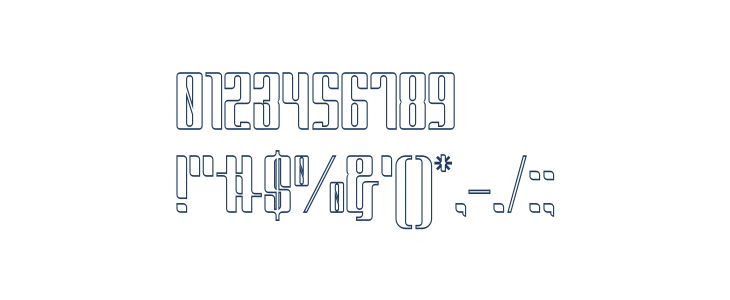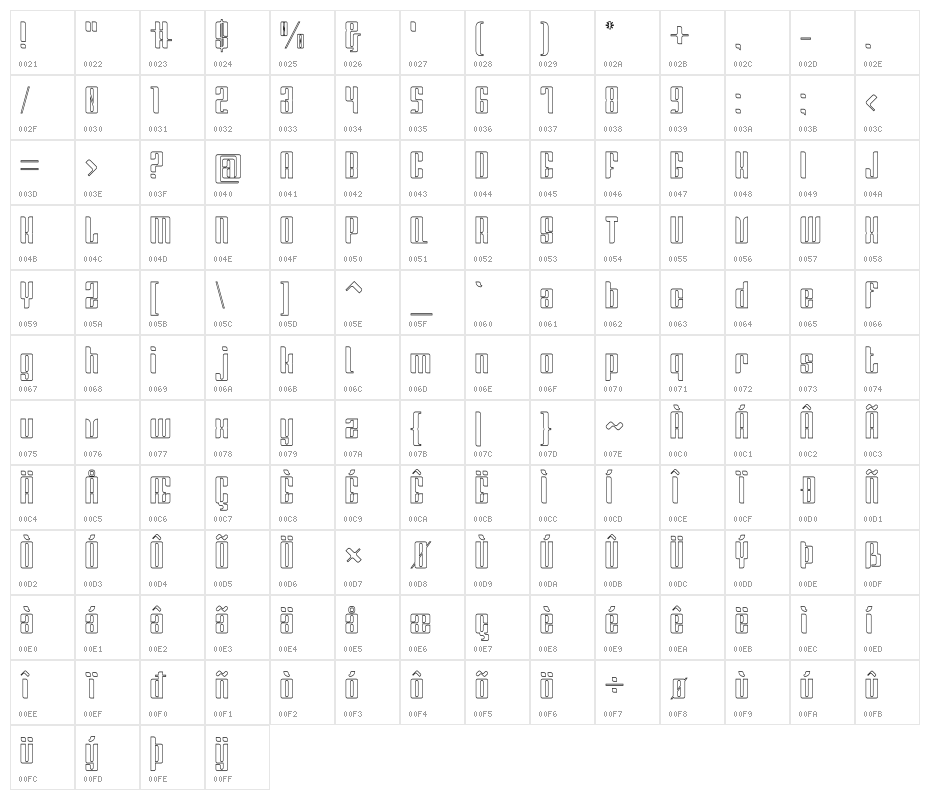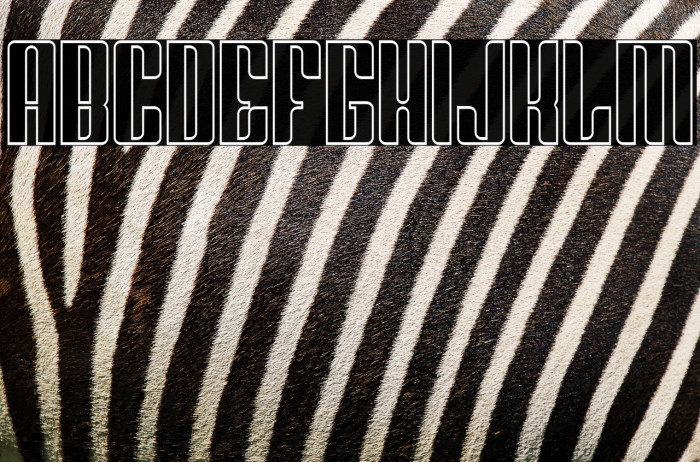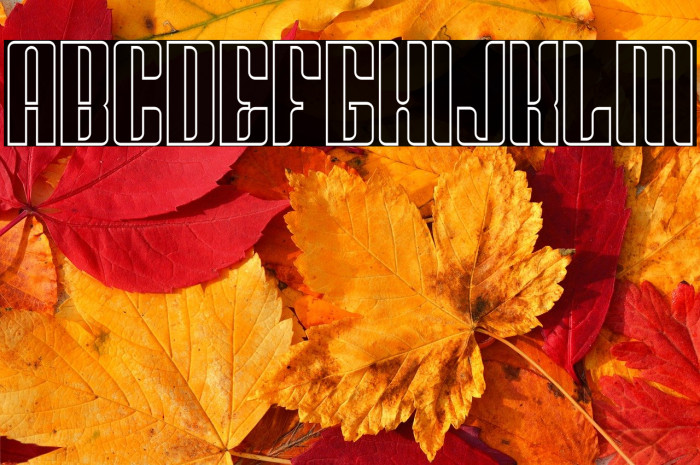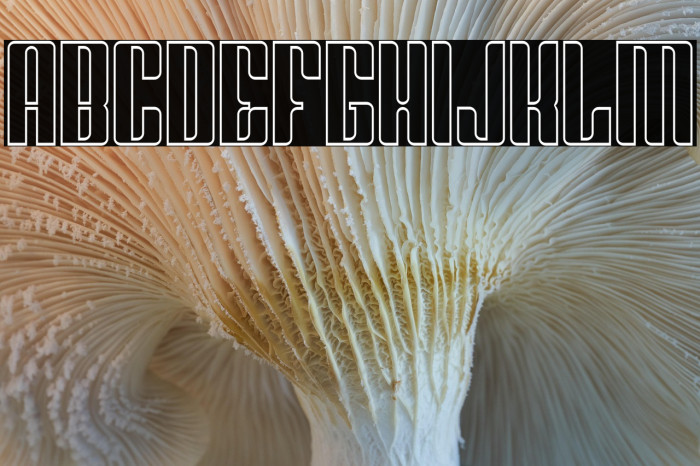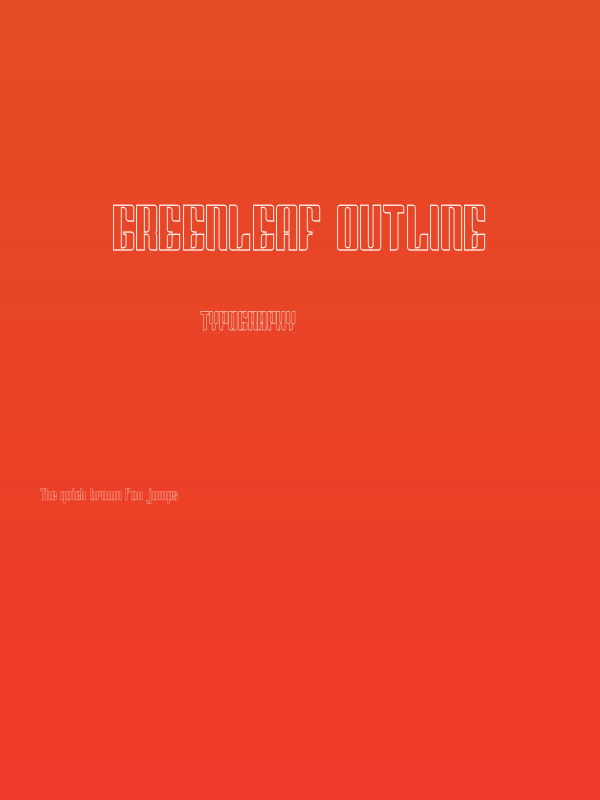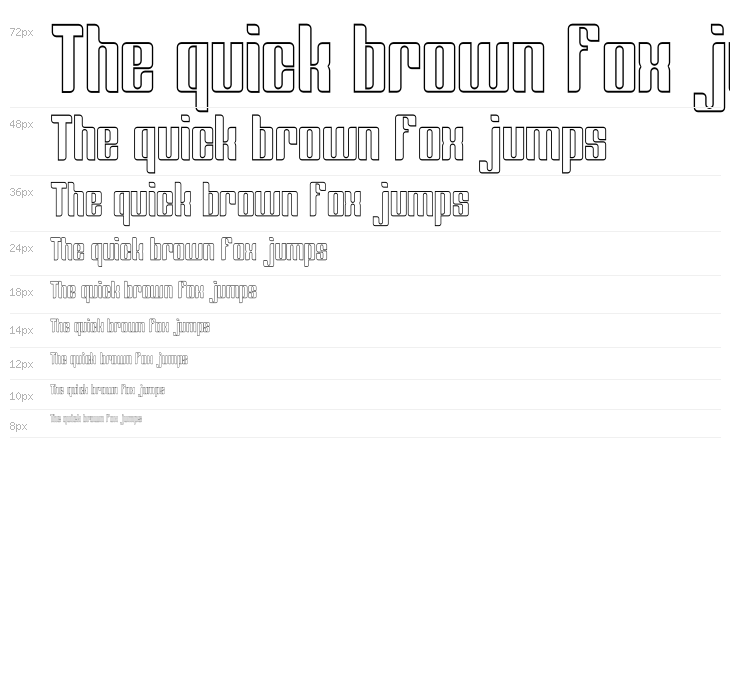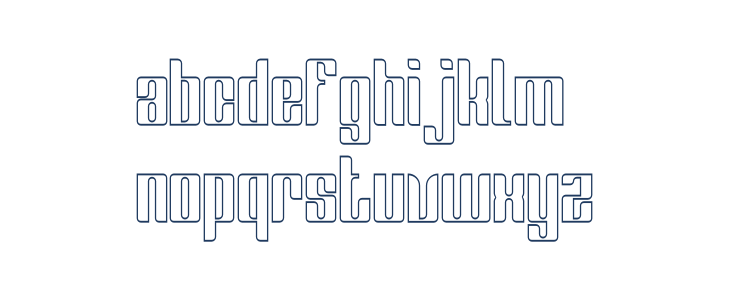
Greenleaf Outline Font
Greenleaf Outline Description
This font features a unique outline style with a modern, geometric appearance. Each character is crafted with a consistent line weight, creating a clean and structured look. The uppercase and lowercase letters maintain a uniform height, emphasizing a sense of balance and harmony. The numerals and special characters follow the same design principles, ensuring a cohesive visual identity across all elements. The font's outline nature gives it a distinctive, airy feel, making it stand out in any design context. Its simplicity and clarity make it suitable for a variety of applications, from branding to digital media.